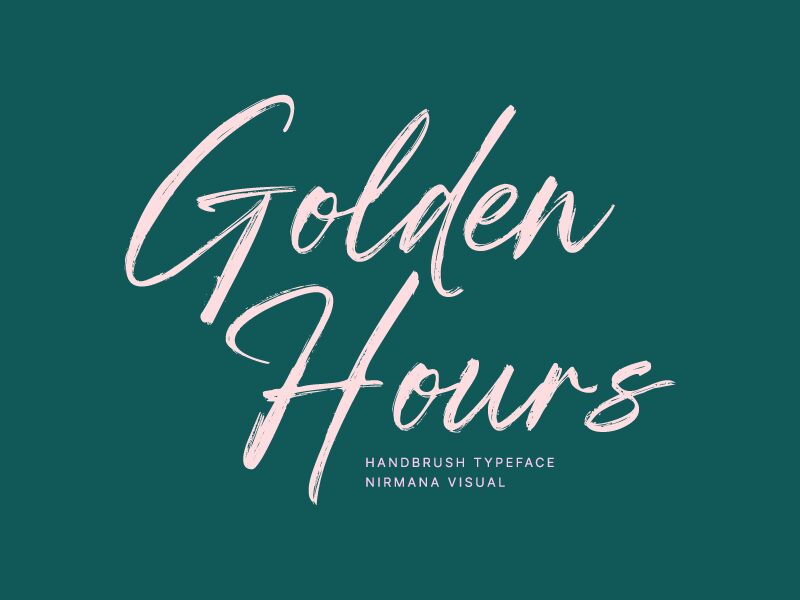
Golden Hours - Demo Version Regular
Golden Hours font by Nirmana Visual is a free brush font that captures expressive elegance with its fluid and natural appearance. Each stroke exhibits artistic flair, resulting in a delicate and refined visual experience. The light weight enhances the handwritten style, emphasizing sophistication and class.
Use Golden Hours for invitation cards, book covers, branding projects, posters, magazines, apparel designs or advertising campaigns. It presents an impeccable choice for website headers and footers, company insignias or logos, product packaging or labels as well as signature elements in photography.